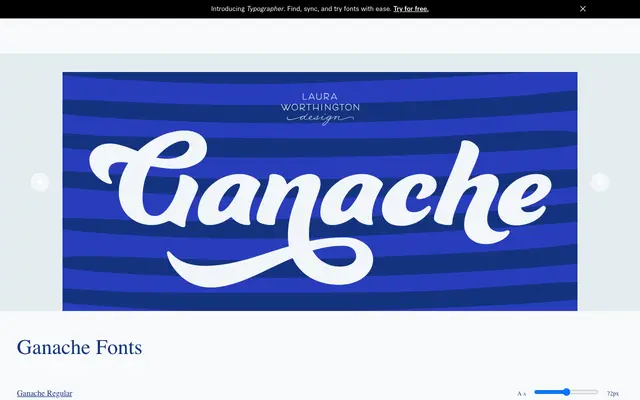
Ganache
A single-weight hybrid script that blends upright Roman, italic and cursive letterforms with 185 swashes and alternates.
Ganache merges script, Roman and italic traditions into one display face, with uppercase letters that treat negative space between characters as a form of active swash. The family ships with 185 swashes and alternates plus 10 ornaments, and Laura Worthington has coded the font so these extras are accessible without professional design software. Latin Extended coverage spans around 25 Western European languages.
Ganache is described as a hybrid of script, Roman and italic forms, making it a display script with calligraphic qualities. Its blend of script and upright letterforms places it firmly in the display script category.